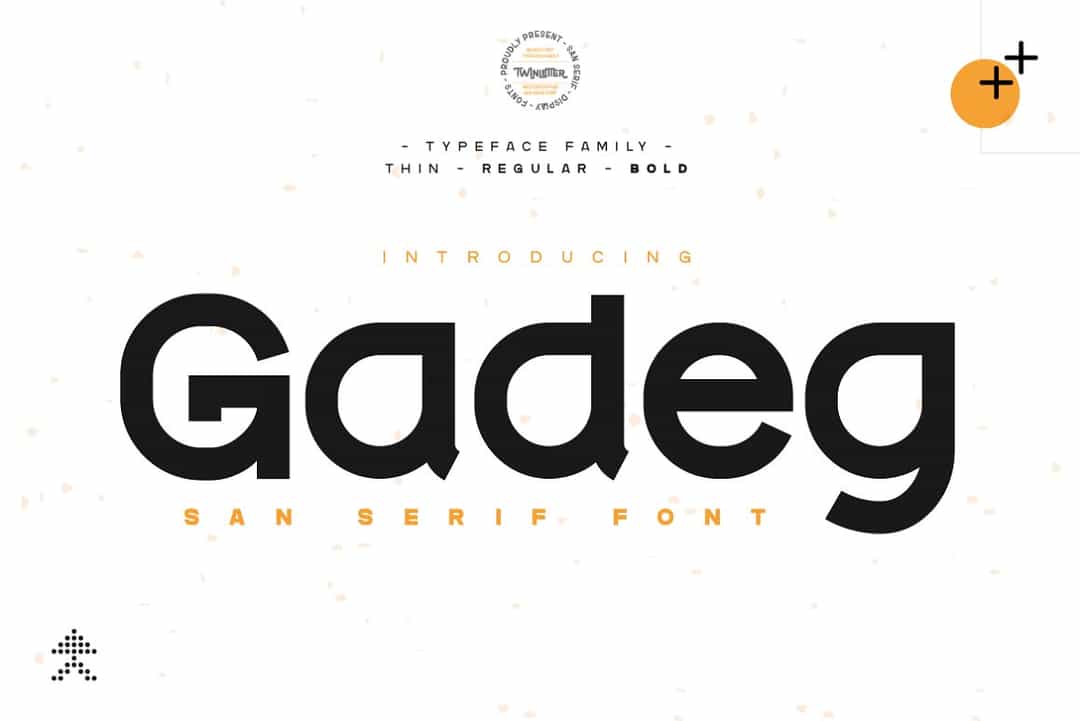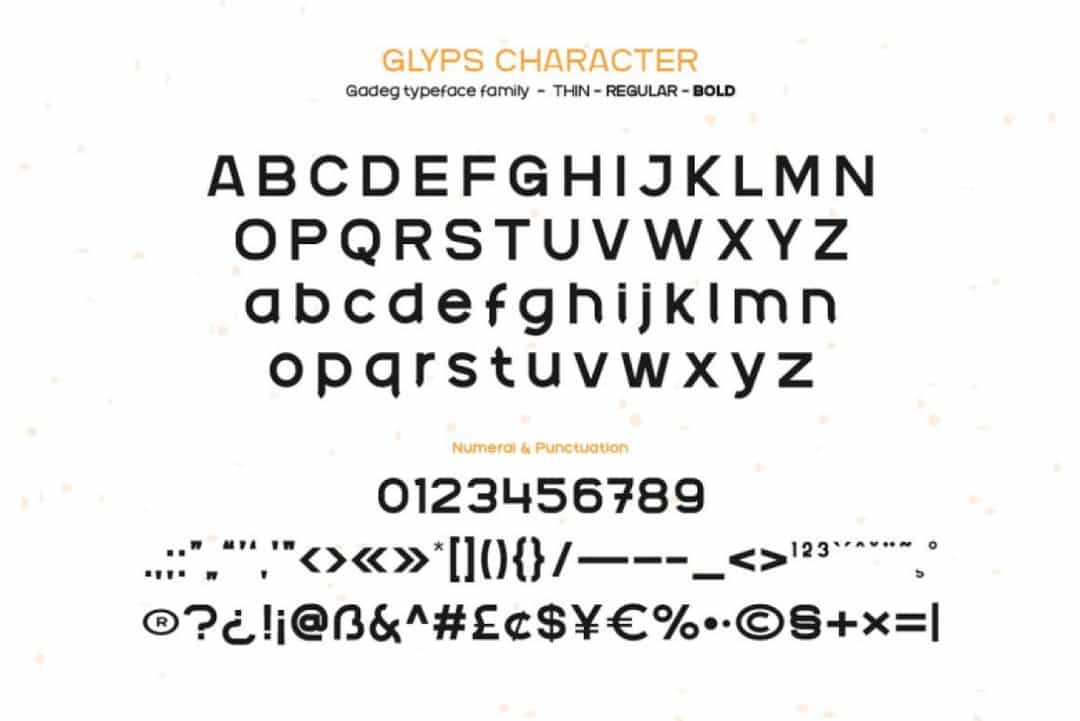
Gadeg is a unique font with its own original and distinctive shape, boasting an elegant minimalist style for an impressive and minimalist appearance. At Gadeg Font Studio we carefully created this san serif family font family to provide stunning appearance and impression and meet both formal and informal requirements.